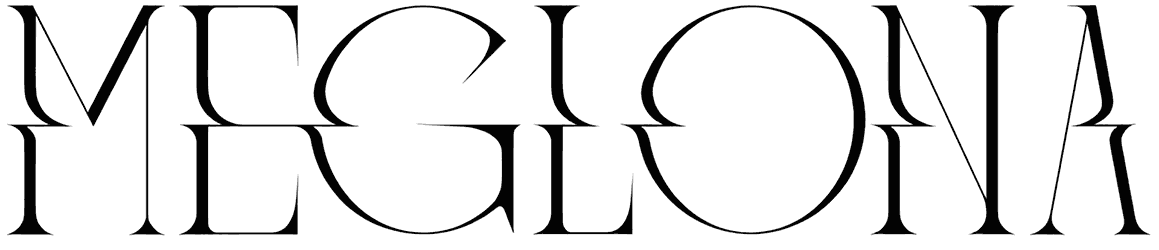
Meglona Font
Meglona is like a visual experiment that pushes the boundaries to create something truly unique and captivating. This distorted font, with its shifted and broken letters and the removal of small letters, challenges our ideas of how words should be and makes us question the nature of simple designs.
In creating this serif font, every letter fluctuates and turns into something new and unexpected. This makes Meglona perfect for editorial layouts, album covers, and anything that needs an avant-garde flair.